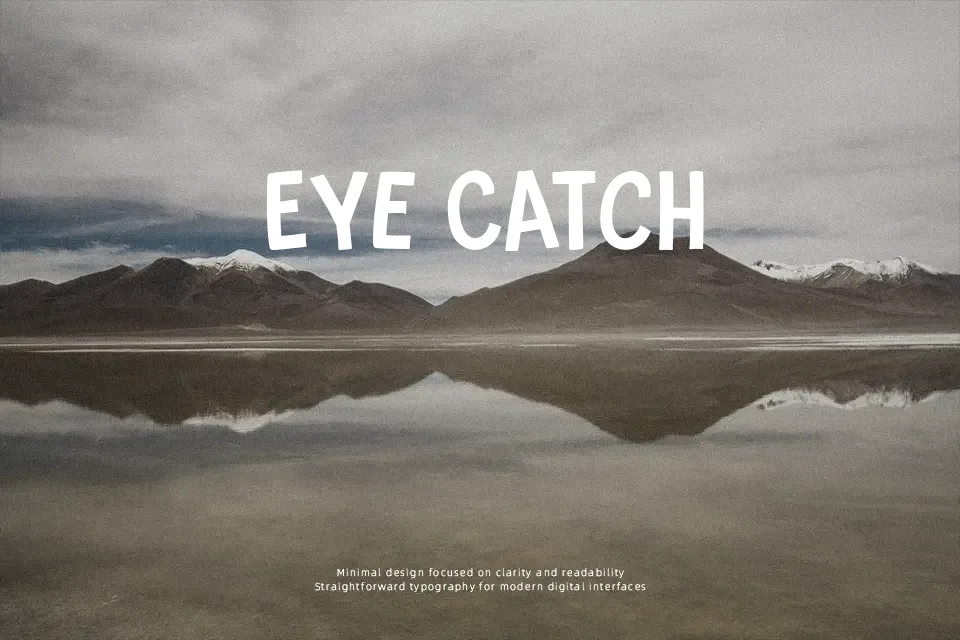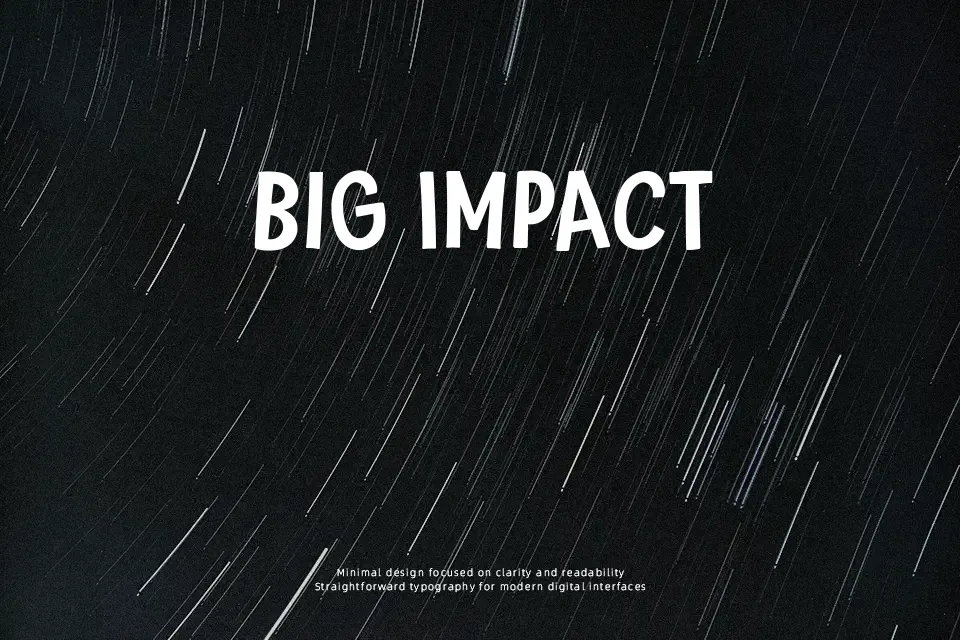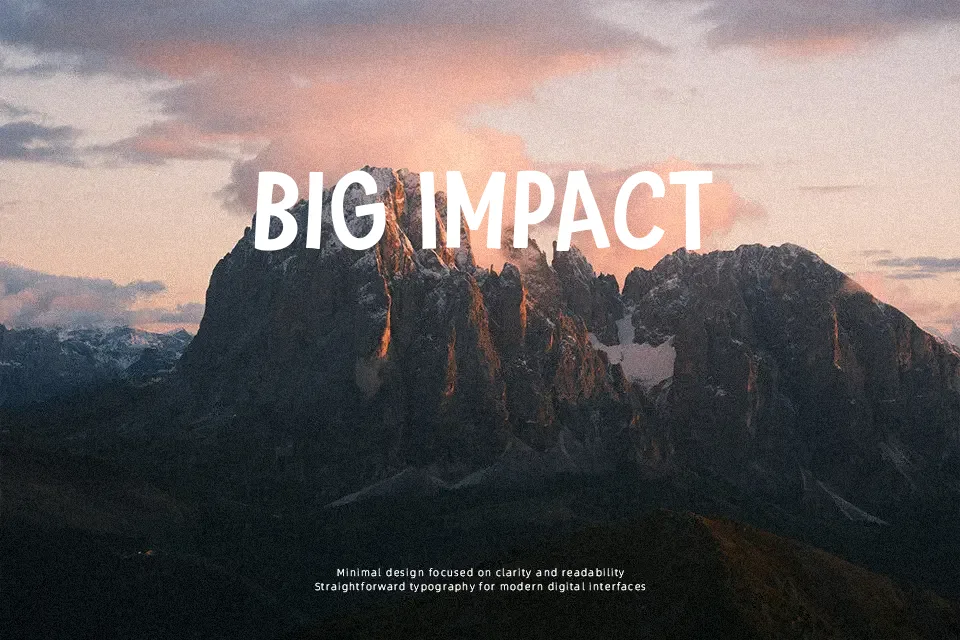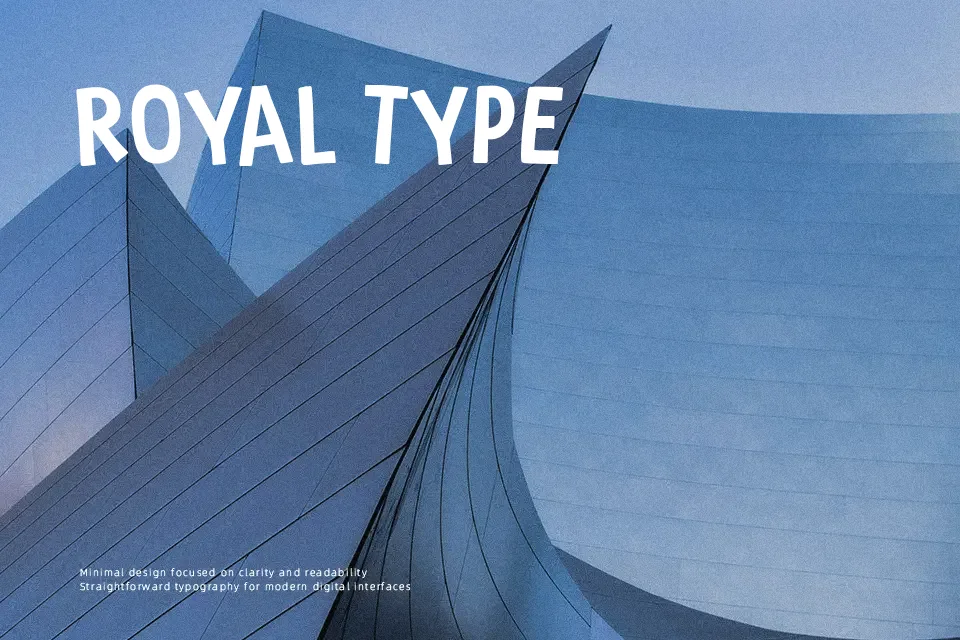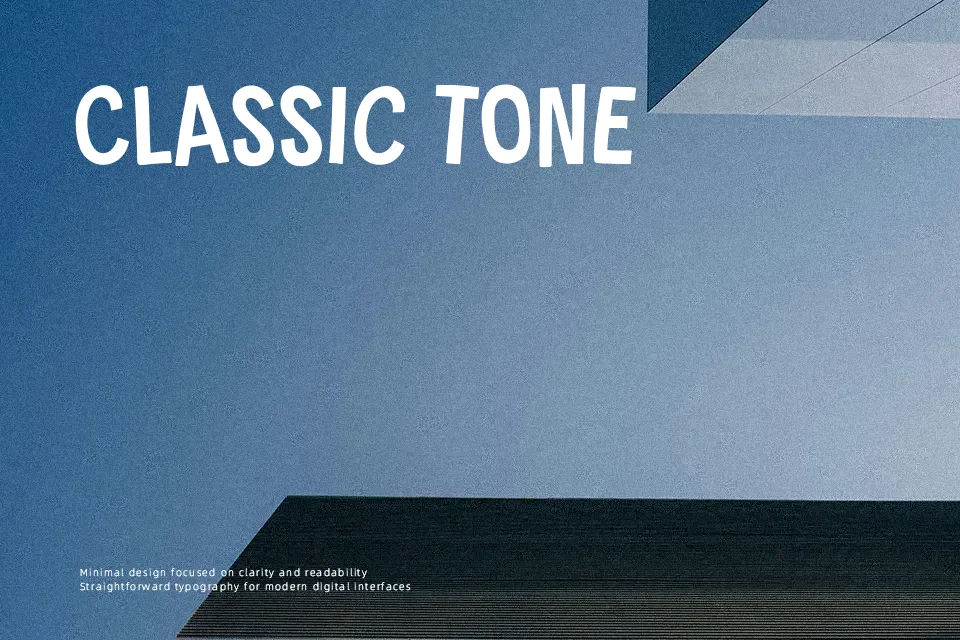
Reselu Font
Designed by Khurasan
Reselu Font introduces a friendly, heavy-weight structure that thrives in casual display settings. The letterforms display soft, rounded terminals and thick, confident strokes, giving the design an energetic and approachable rhythm. Its compact proportions and tight spacing allow for impactful typography while maintaining a bubbly, cartoon-like charm. These robust shapes remain highly visible from a distance, making the typeface an excellent choice for children’s packaging, playful logos, and lively event posters. However, the dense forms reduce continuous reading comfort, meaning it is less suitable for lengthy paragraphs or small interface elements. Ultimately, the chunky strokes improve visibility in prominent display roles but require ample canvas space to breathe.
Best For: children’s book covers, casual toy packaging, animated video titles, cheerful event posters
Not Ideal For: long paragraph text, small interface labels, dense corporate documents, tabular data presentation